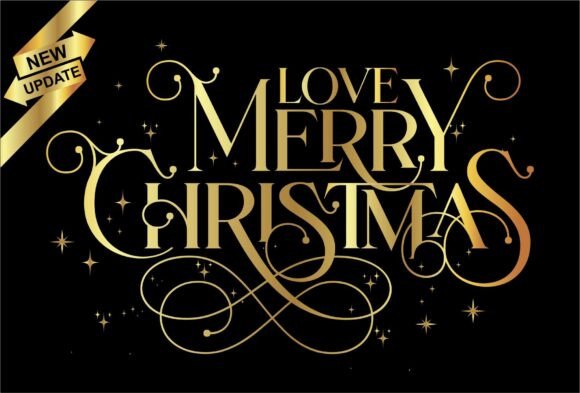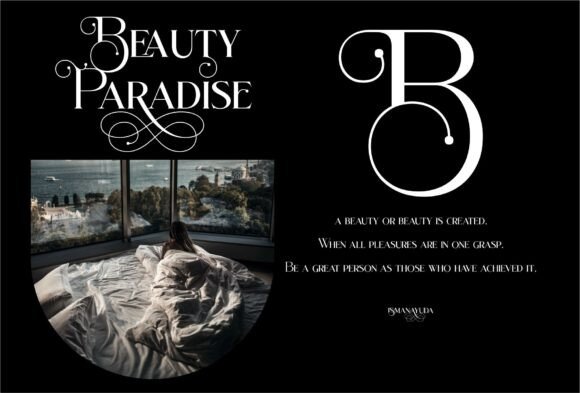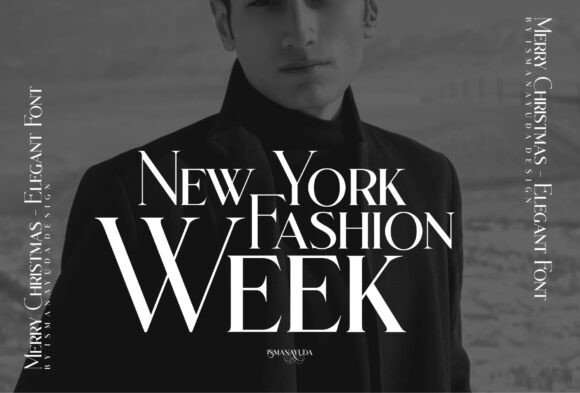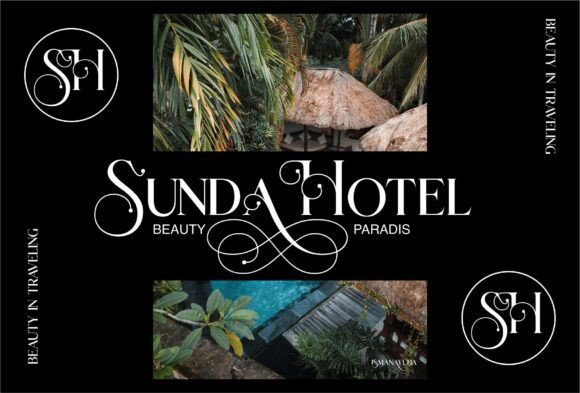
Love Merry Christmas Font
About the Love Merry Christmas Font
Presenting Love Merry Christmas Font, a unique and stylish typeface that will make your work stand out. Love Merry Christmas is a fancy, elegant serif font with a festive feel. The letters have graceful curves and stylish details, perfect for holiday greetings, cards, and decorations that want a touch of classic charm.
Its elegant curves and refined details make it ideal for projects requiring a touch of classic sophistication. Consider using it for headlines, short text blocks on invitations or gift tags, and even logos for brands focusing on luxury goods or festive experiences. However, its ornate style is less suited for body text or UI elements where readability is paramount; the intricate details would hinder quick comprehension in smaller sizes.
Love Merry Christmas pairs well with clean sans-serif fonts like Open Sans or Lato for a balanced contrast, providing readability for supporting text. For a more playful feel, consider pairing it with a handwritten script font, but choose one with a similar level of elegance to maintain visual harmony. Avoid pairing it with overly geometric or bold sans-serifs, which would clash with its delicate nature.
The overall personality is one of refined elegance and festive cheer, making it best suited for brands and projects aiming for a sophisticated yet celebratory feel. Think high-end holiday campaigns or charming boutique businesses.
Love Merry Christmas Font Usage Examples
Love Merry Christmas Font Example